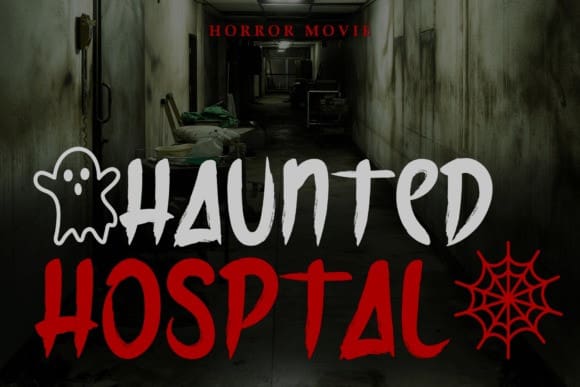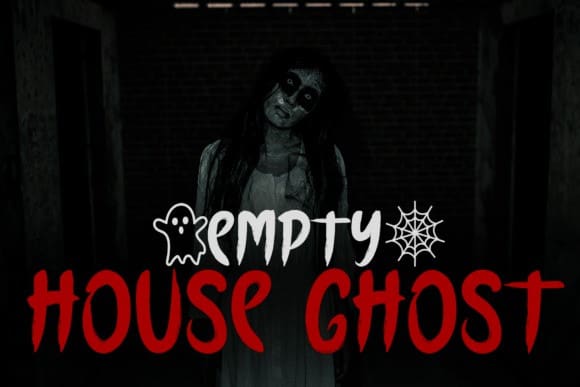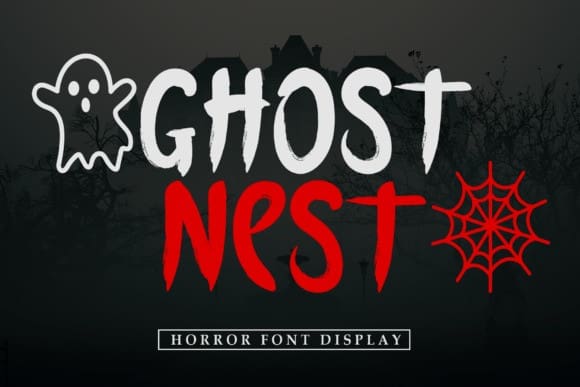
Ghost Nest Font
Ghost Nest Font is a scary font with a minimal effect of brushstrokes. The additional elements of ghosts and spider webs make an ambiance of horror. It goes well on invitations, postcards, posters, and headings for a Halloween event; this font can be used in every setting.